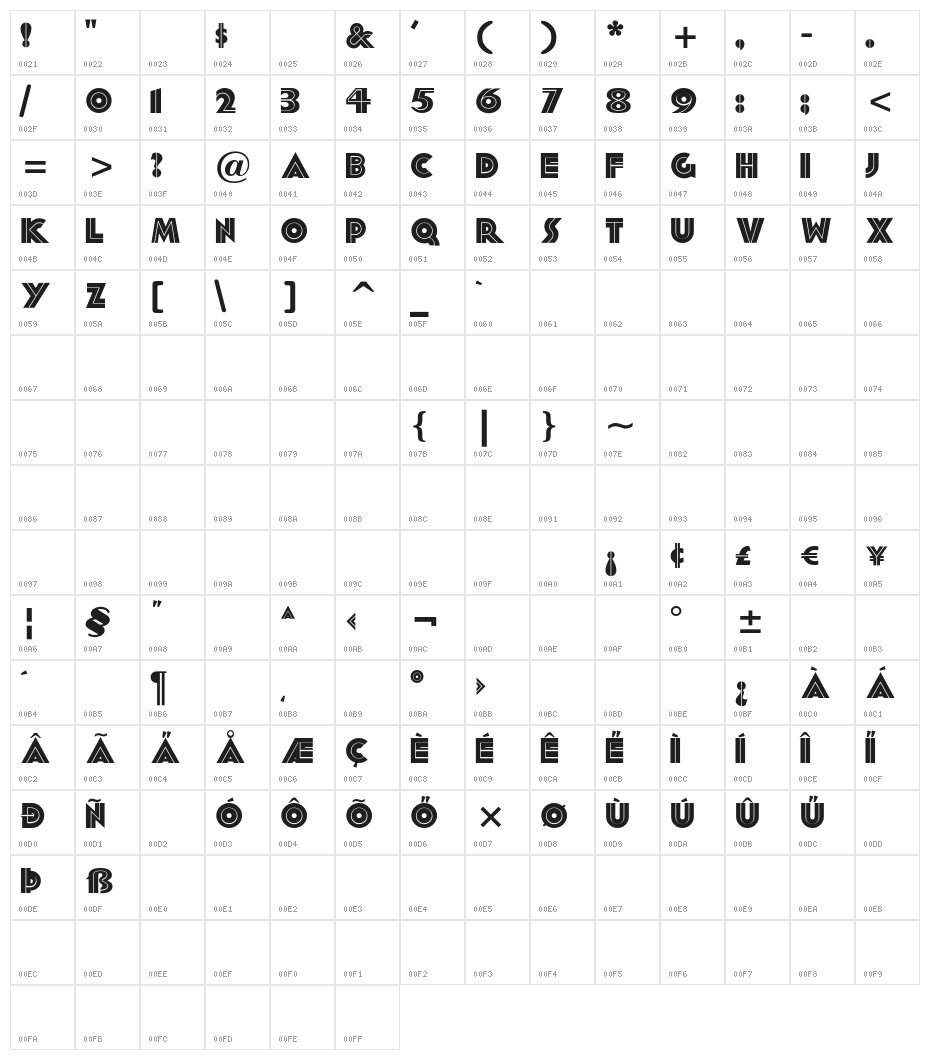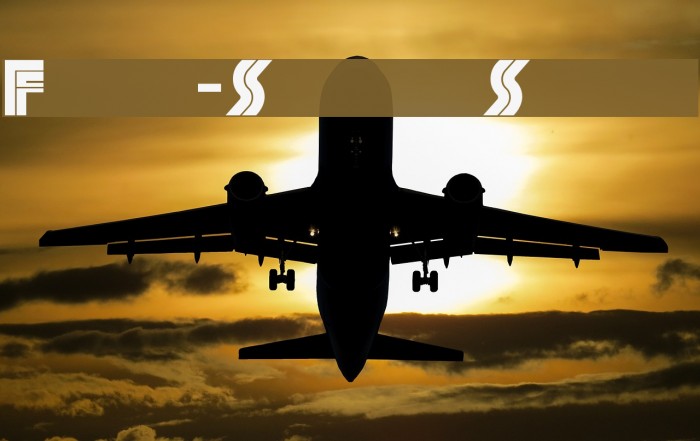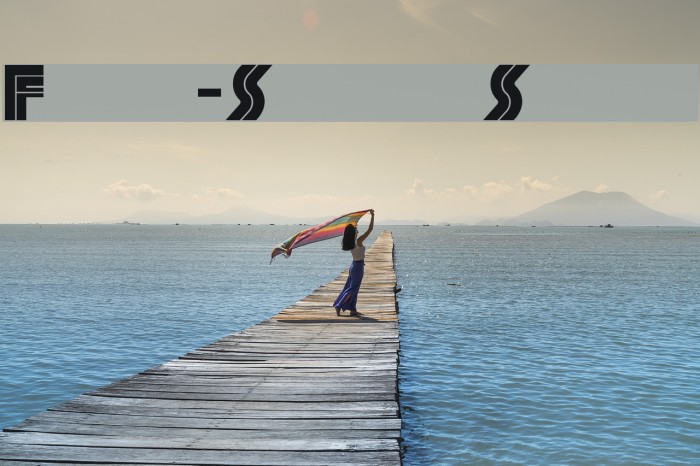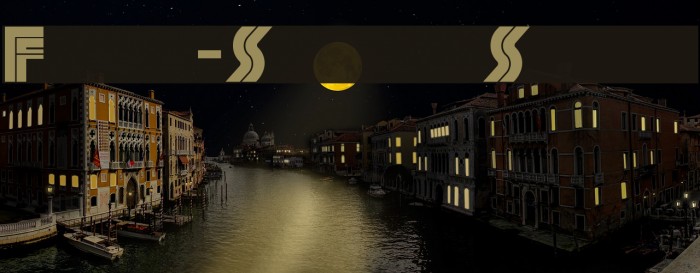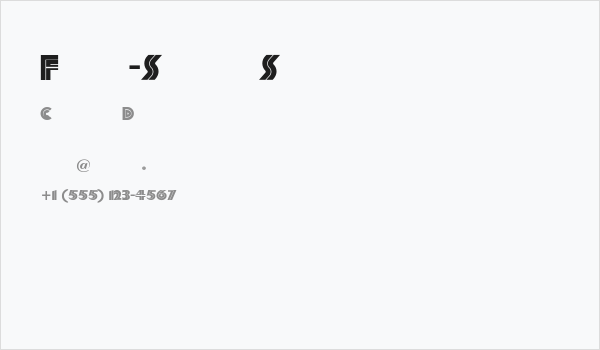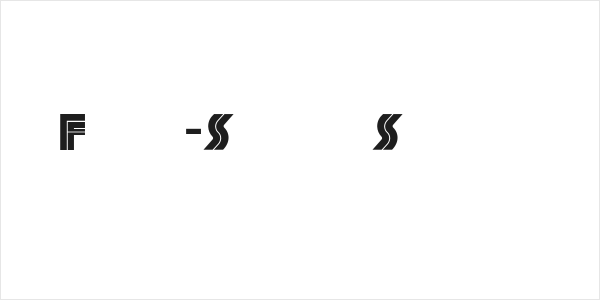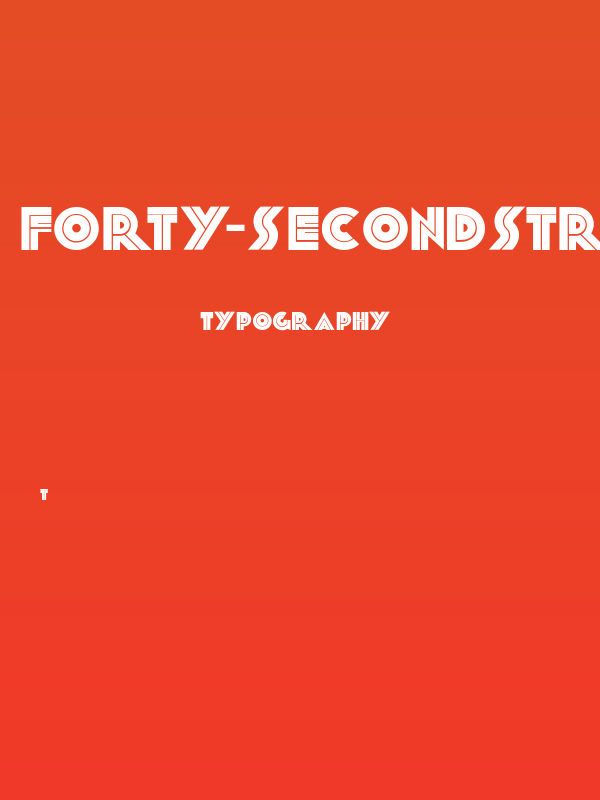
Forty-SecondStreet Font
Forty-SecondStreet Description
This font features a bold and geometric design with strong Art Deco influences. The characters are crafted with a combination of straight lines and curves, creating a sense of movement and elegance. The uppercase letters are particularly striking, with unique cutouts and angles that give them a distinct appearance. The numerals and special characters maintain the same bold style, ensuring consistency across all elements. This font is ideal for making a statement, with its eye-catching and sophisticated aesthetic.
| Proposed Projects | Ideal for branding, posters, and signage where a bold, vintage look is desired. |